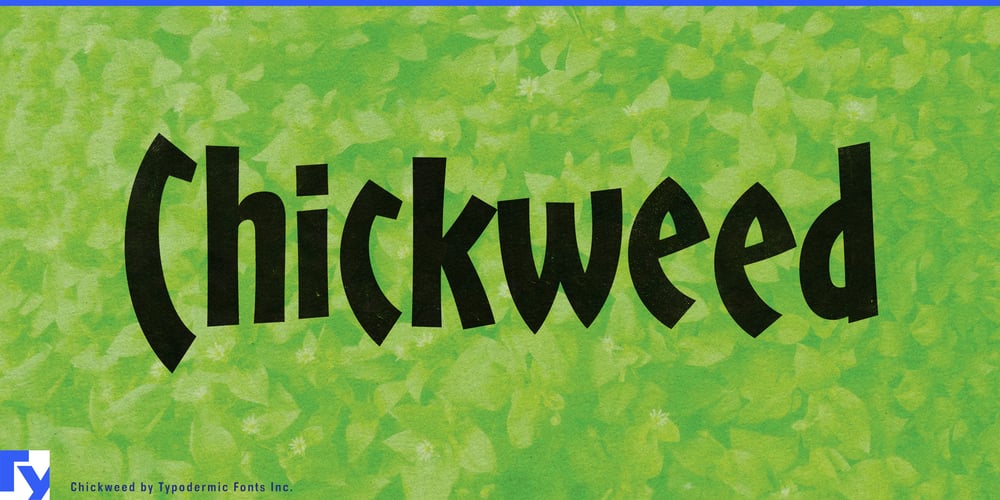
Chickweed Font Family was designed by Ray Larabie and published by Typodermic. Chickweed contains 1 styles and family package options. Elevate your typography with Chickweed, a typeface that dances on the edge of convention and captivates with every curve. This dynamic font doesn’t just grab attention—it holds it, infusing your headlines and subheadings with an irresistible energy that demands to be noticed.Chickweed’s charm lies in its ability to make a grand statement while occupying minimal space. Its compact design is a testament to efficient elegance, proving that sometimes less truly is more. But don’t be fooled by its economical use of space—Chickweed packs a visual punch that resonates long after the first glance. At the heart of Chickweed’s allure is its OpenType wizardry. As your words flow, the font’s smart features spring into action, seamlessly shuffling variations to create a natural, exuberant texture. This organic randomness mimics the spontaneity of handcrafted lettering, giving your designs an authentic, artisanal feel without the need for painstaking manual adjustments.Chickweed’s personality is as versatile as it is vibrant. Its playful swoops and contemporary curves make it the perfect choice for brands that dare to be different. From quirky café menus to cutting-edge tech startups, Chickweed adapts effortlessly, speaking volumes in any language it encounters. And with support for a vast array of Latin-based writing systems, your message retains its distinctive voice whether it’s turning heads in Turin or making waves in Warsaw.In a world where attention is currency, Chickweed is your typographic goldmine. It’s more than a font—it’s a creative catalyst, transforming ordinary text into extraordinary visual experiences. Whether you’re crafting a logo that lingers in memory, designing a website that users can’t resist exploring, or creating posters that stop people in their tracks, Chickweed is your secret weapon.So why blend in when you can stand out? Embrace the dynamic spirit of Chickweed and watch as your designs come alive with unbridled energy and style. It’s time to let your typography do the talking—and with Chickweed, every word is a showstopper.